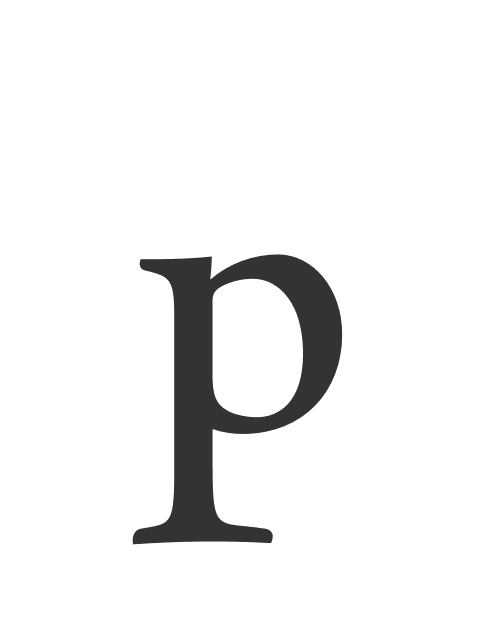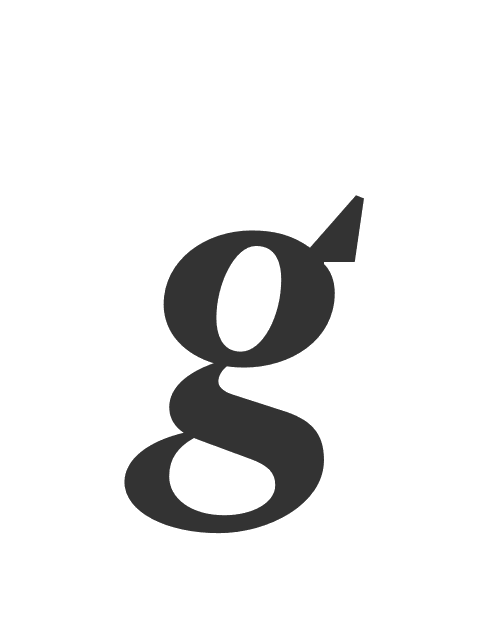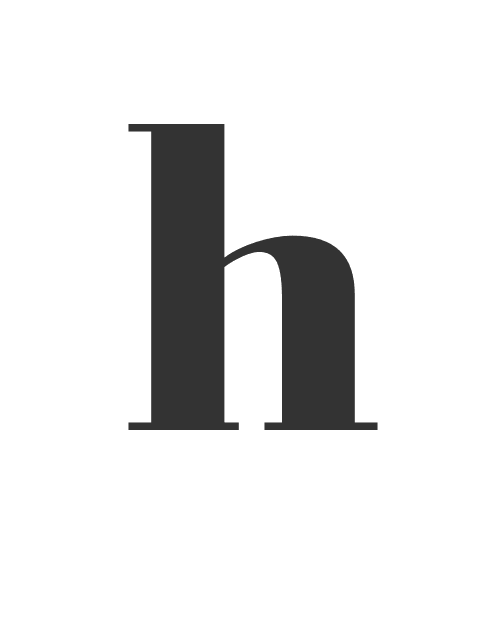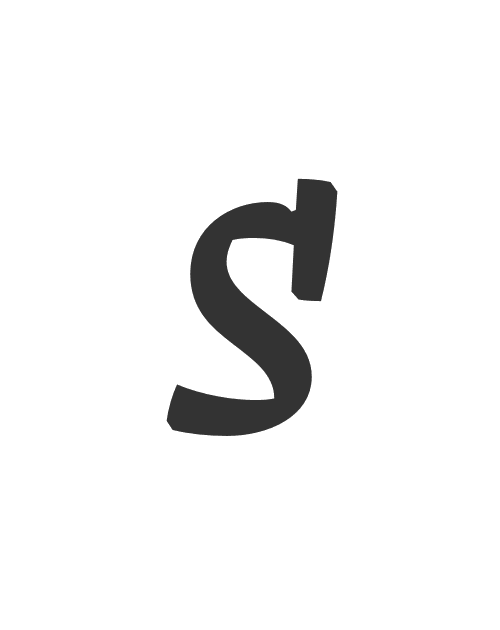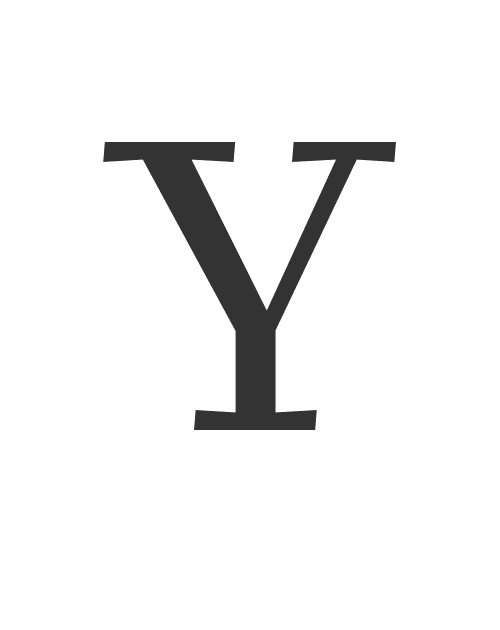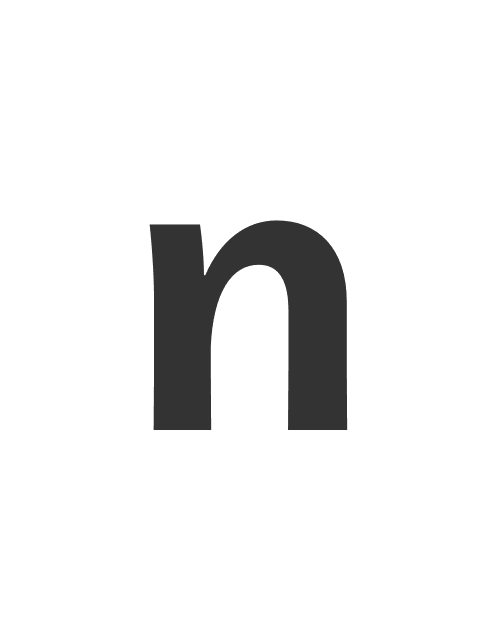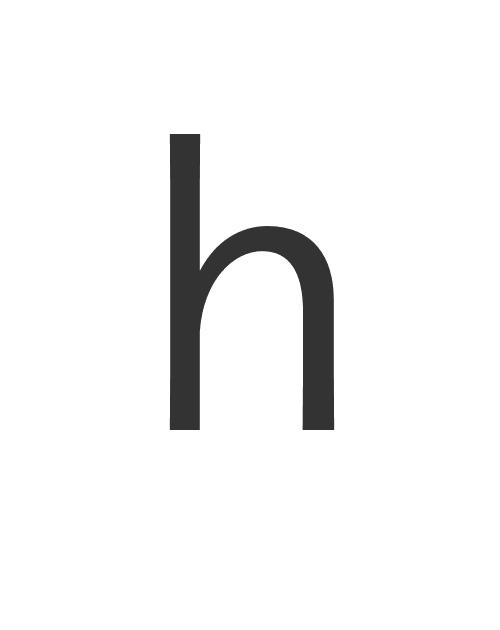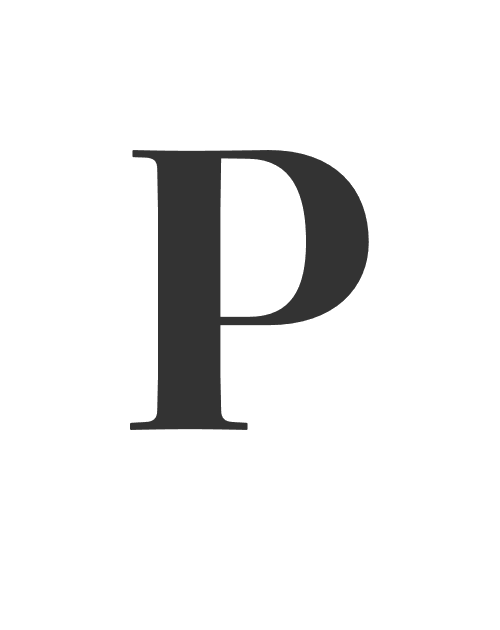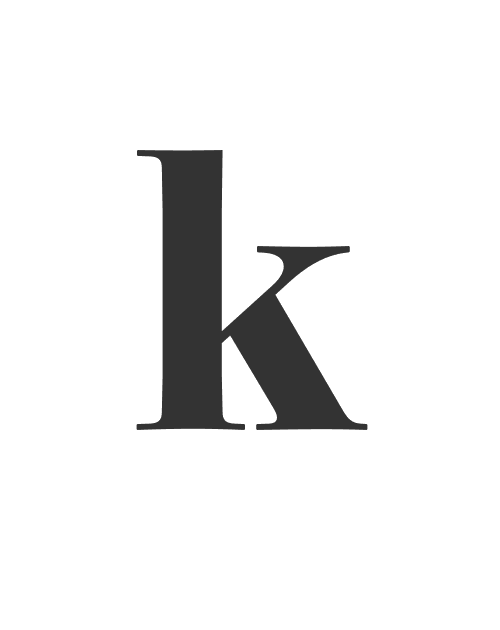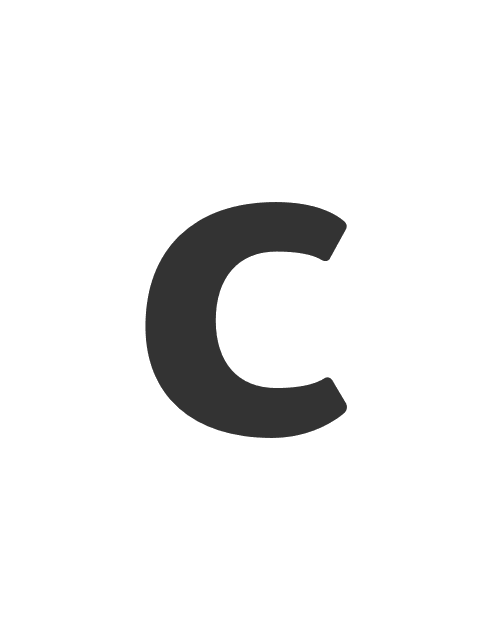
About the typeface :
Superhero
My aim is to explore and experiment different characteristics of the typeface. It is a way of looking at display versus text, or even various degrees of display.
The type family is purely in the display realm, with various superpowers for each of the weights.